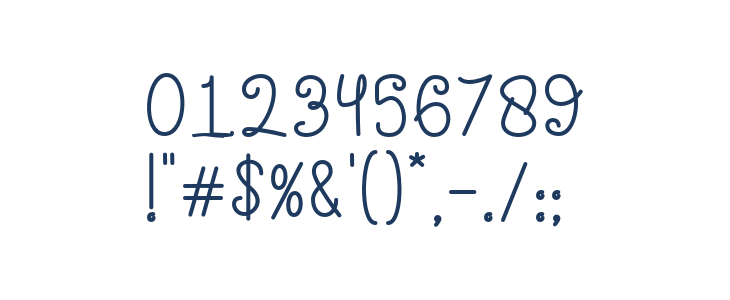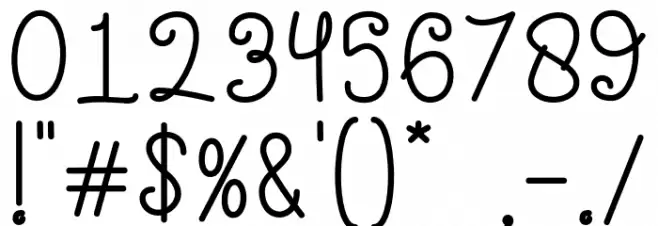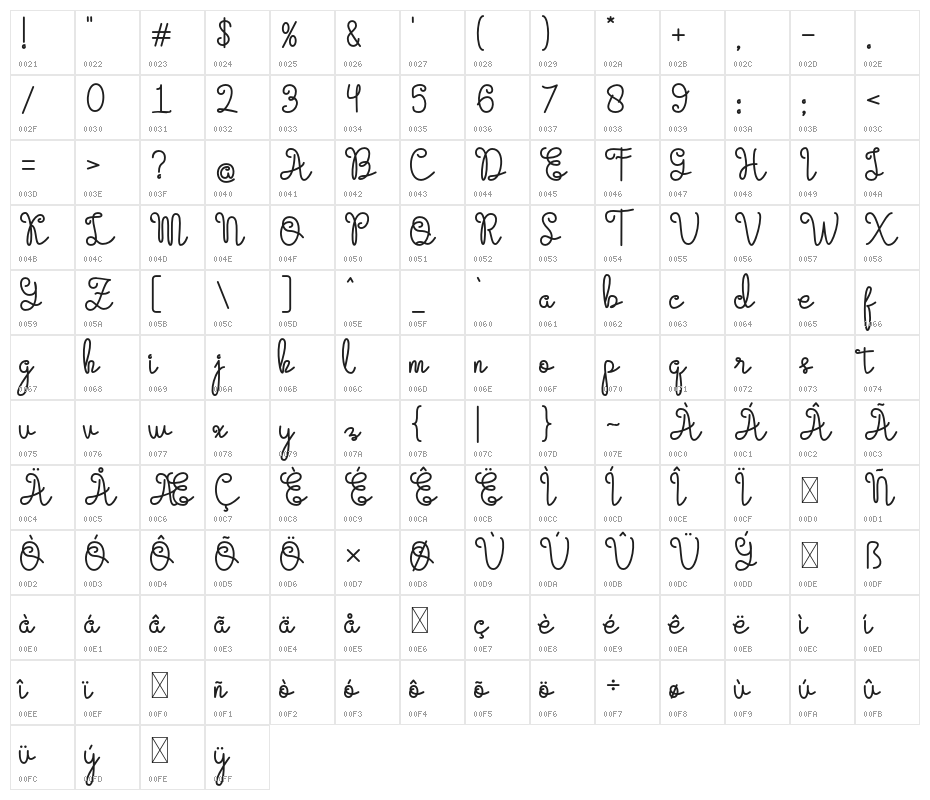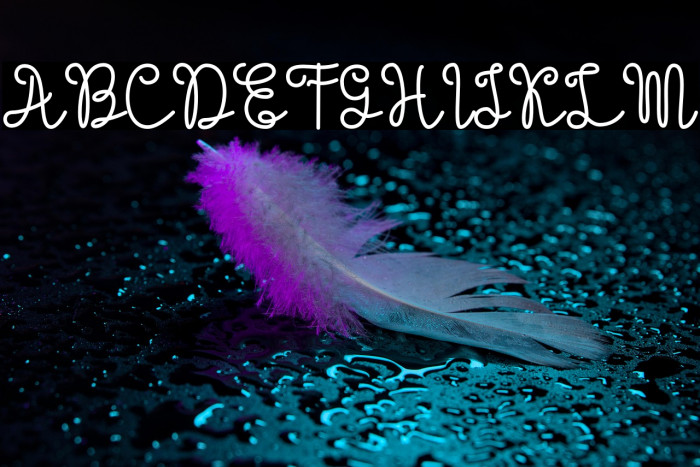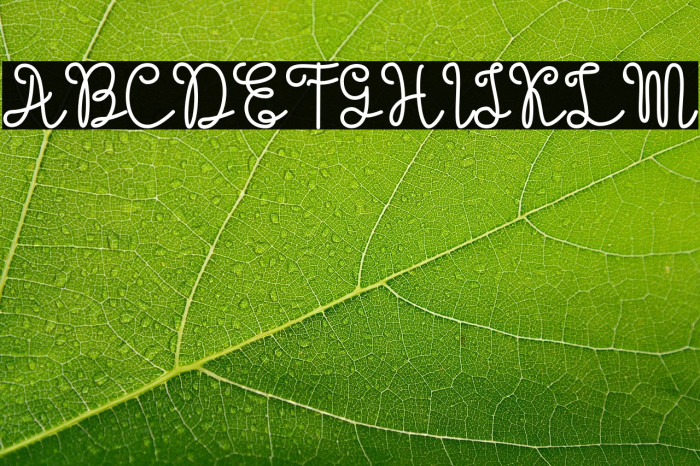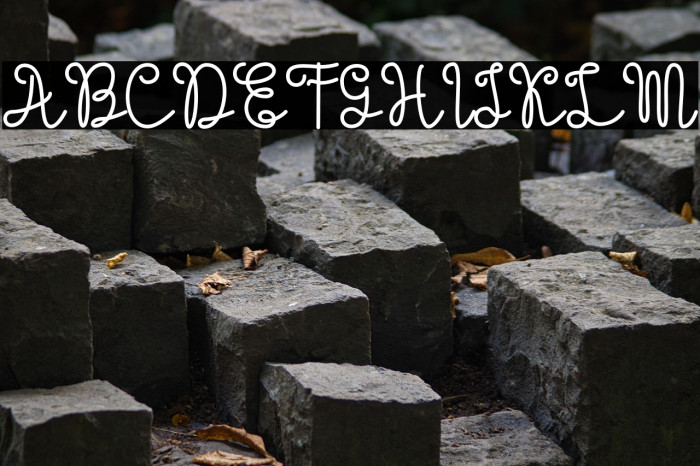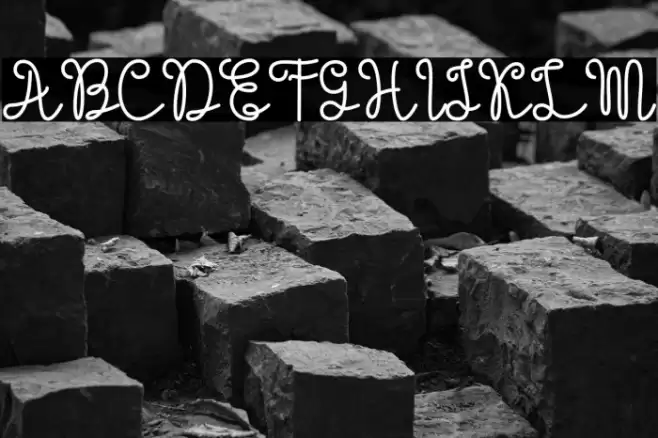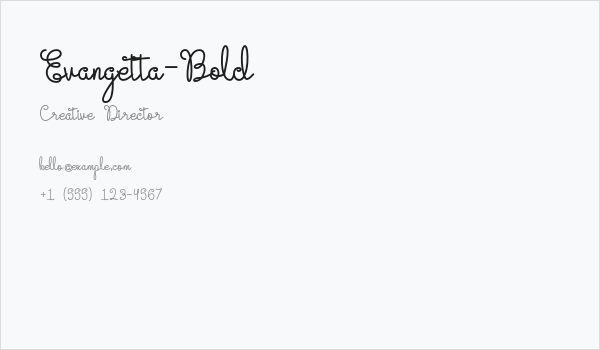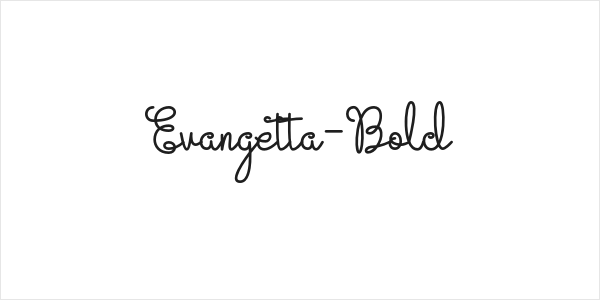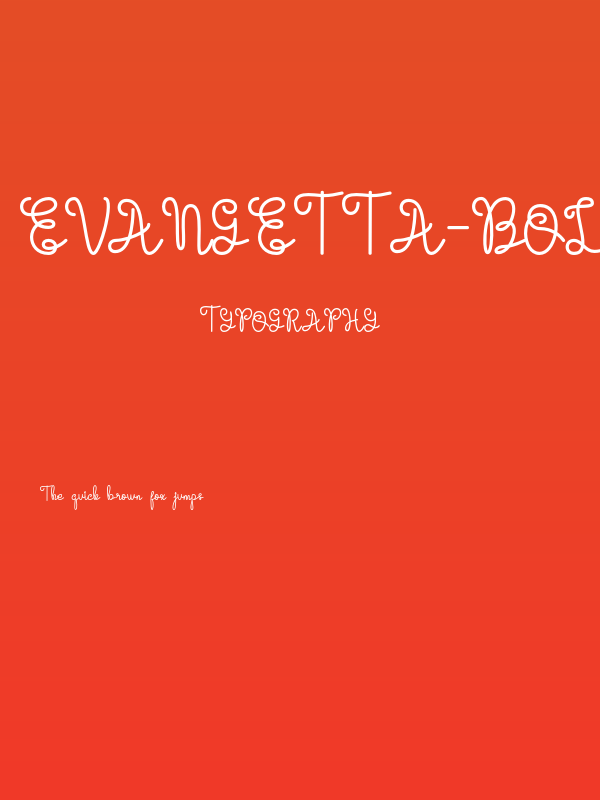
Evangetta-Bold Font
Evangetta-Bold Description
This font exhibits a playful and whimsical script style, characterized by its flowing, interconnected letterforms. The uppercase letters maintain a consistent height with a slight slant, adding a dynamic feel. The lowercase letters are more elaborate, featuring loops and curls that enhance the font's decorative nature. The numerals are bold and rounded, maintaining the playful aesthetic. Special characters are designed with the same fluidity, ensuring cohesion across all elements. This font is ideal for projects that require a touch of elegance and creativity, such as invitations, greeting cards, and artistic branding.
| Use Case | Headlines, Logos, Artistic projects |
| Proposed Projects | Ideal for invitations, greeting cards, artistic branding, and decorative projects. |